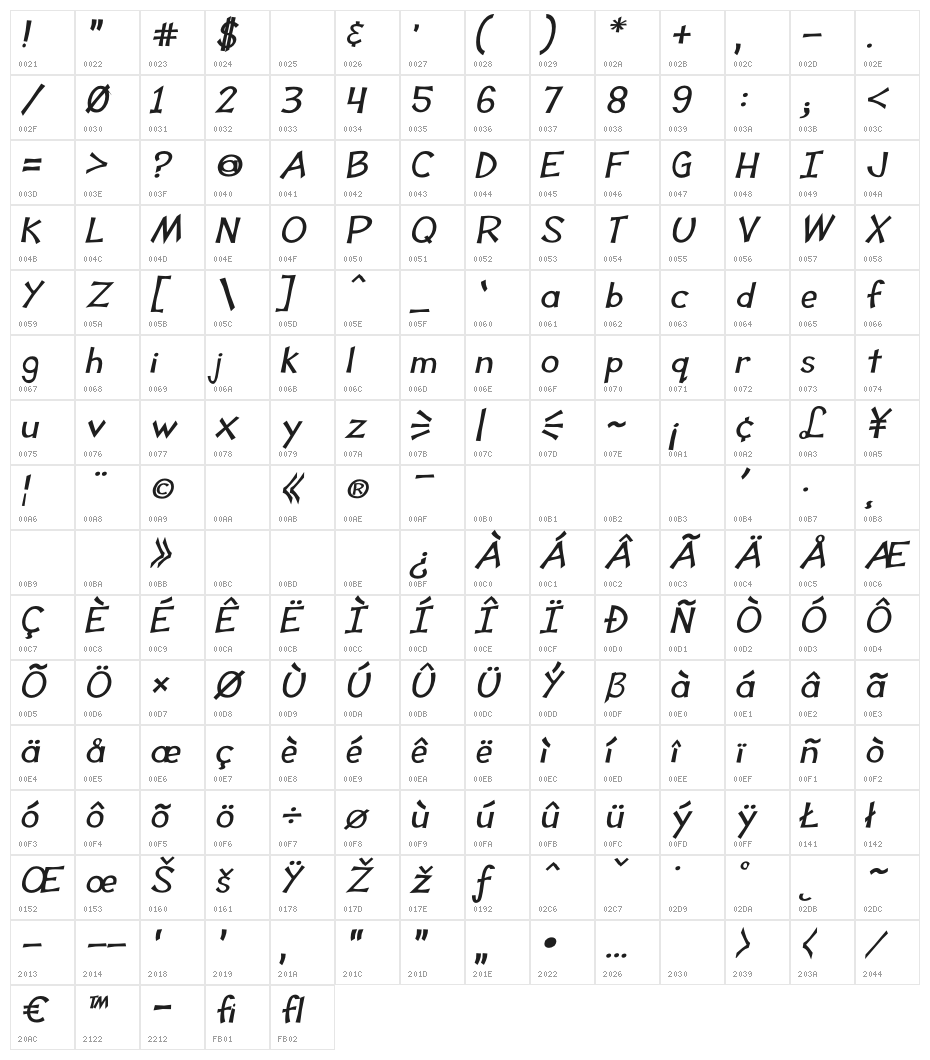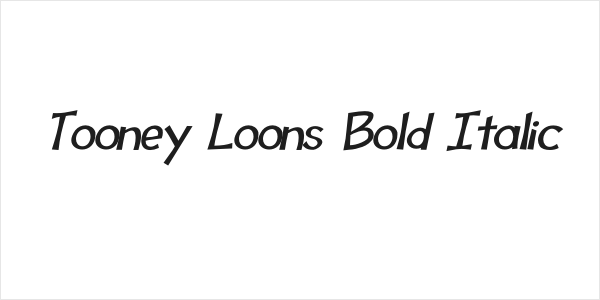
Tooney Loons Bold Italic Font
Tooney Loons Bold Italic Description
This font features a playful and dynamic style with a bold and italicized appearance. The characters exhibit a lively, energetic flair, with exaggerated curves and angles that give it a whimsical and cartoonish feel. The uppercase letters are slightly slanted, adding to the sense of motion and fun. Lowercase letters maintain a consistent style, complementing the uppercase with their rounded forms and smooth transitions. The numerals and special characters follow the same playful design, ensuring a cohesive look across all elements. This font's unique style makes it stand out, making it ideal for projects that require a touch of humor and creativity.
| Overall Style | Playful, Cartoonish, Energetic |
| Proposed Projects | Ideal for children's books, comic strips, playful branding, and creative posters. |